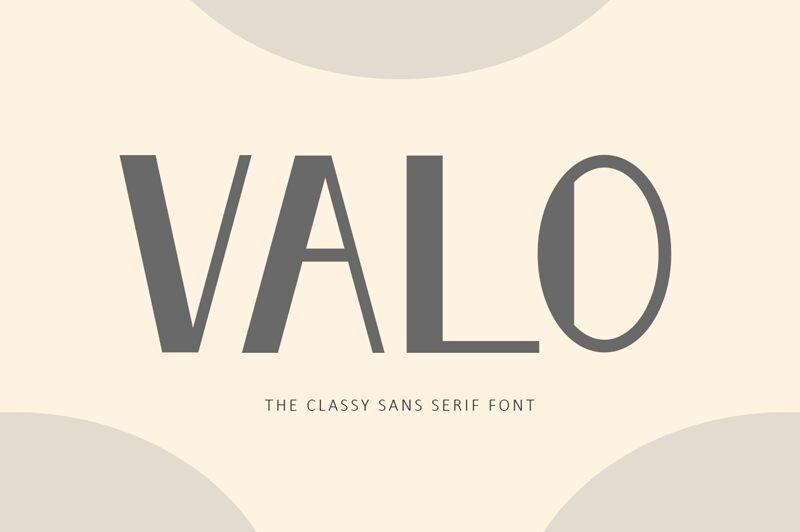
Valo, a classy sans serif font designed by Illushvara, adds elegance and sophistication to any project. With its clean lines and timeless style, Valo is suitable for a variety of creative ventures. Its regular font type brings a touch of professionalism to corporate presentations and reports. The bold font is perfect for eye-catching headlines in magazines or advertisements.
The italic font lends itself well to fashion editorials or wedding invitations, adding a touch of gracefulness. Whether it's branding, packaging design, or website layouts, Valo is the ideal choice for those seeking a refined and polished aesthetic.